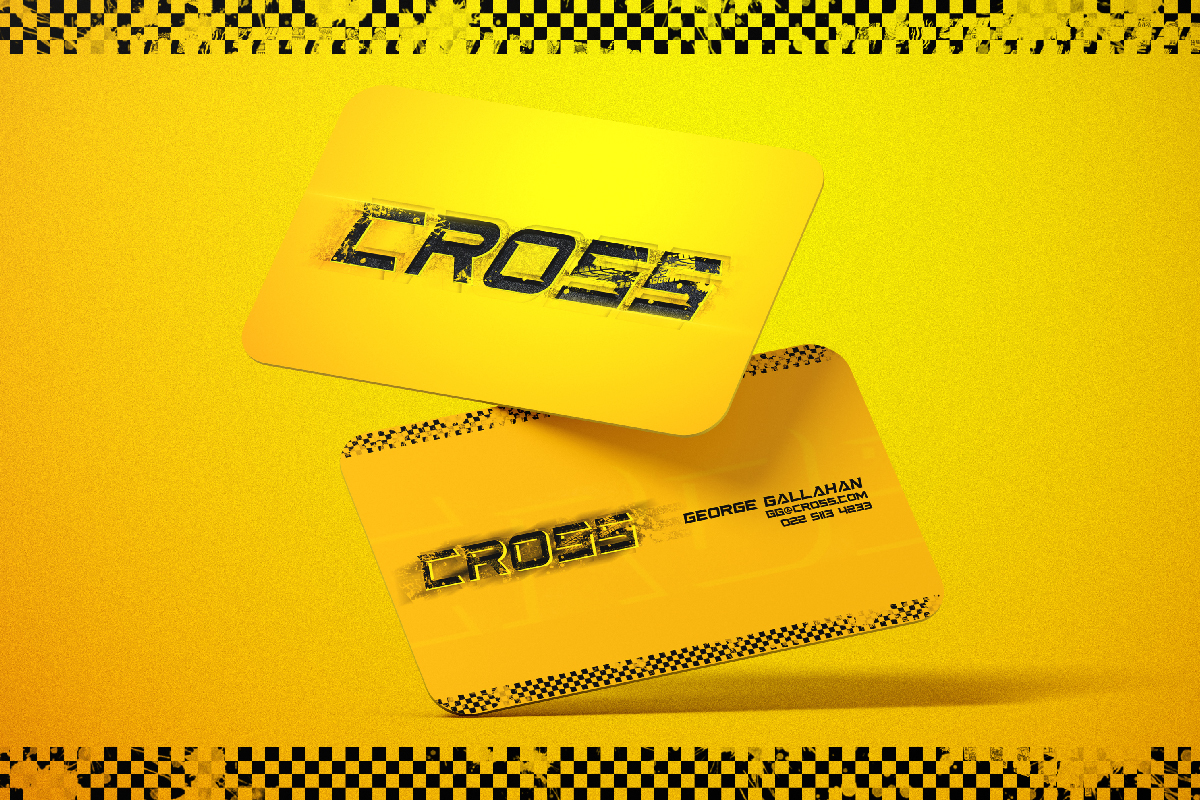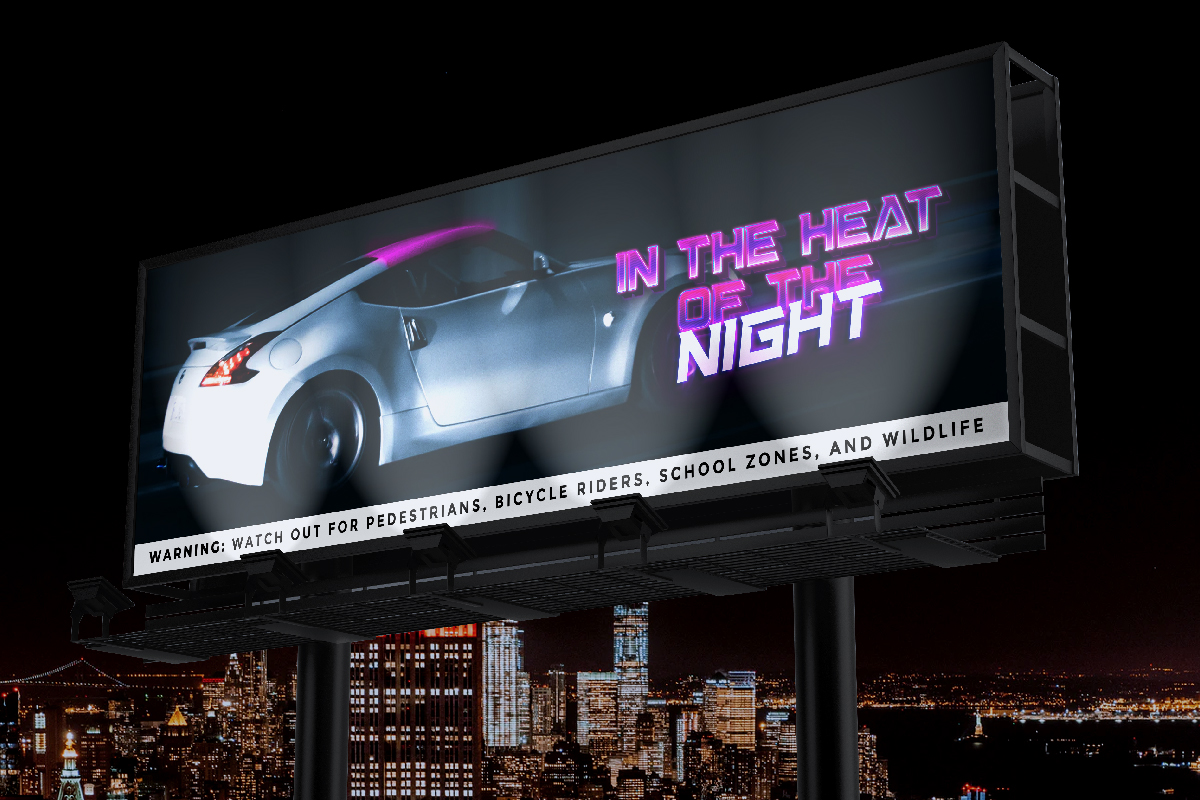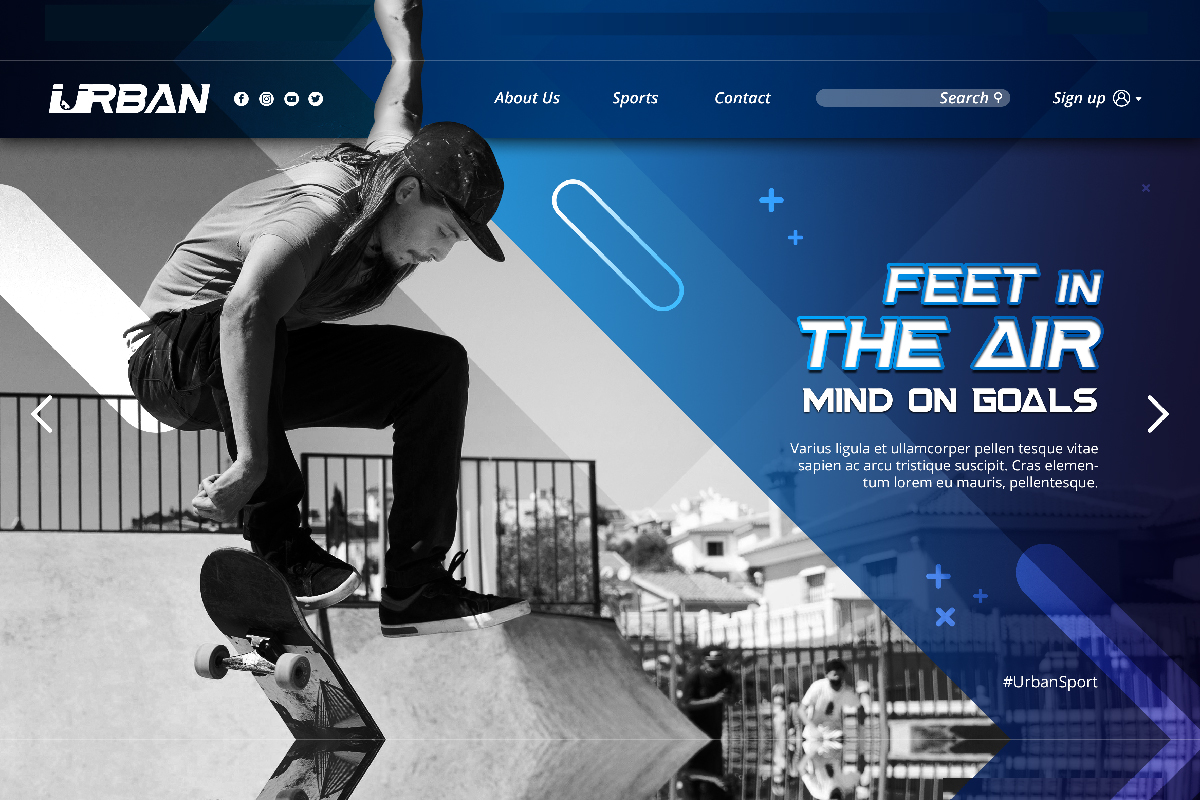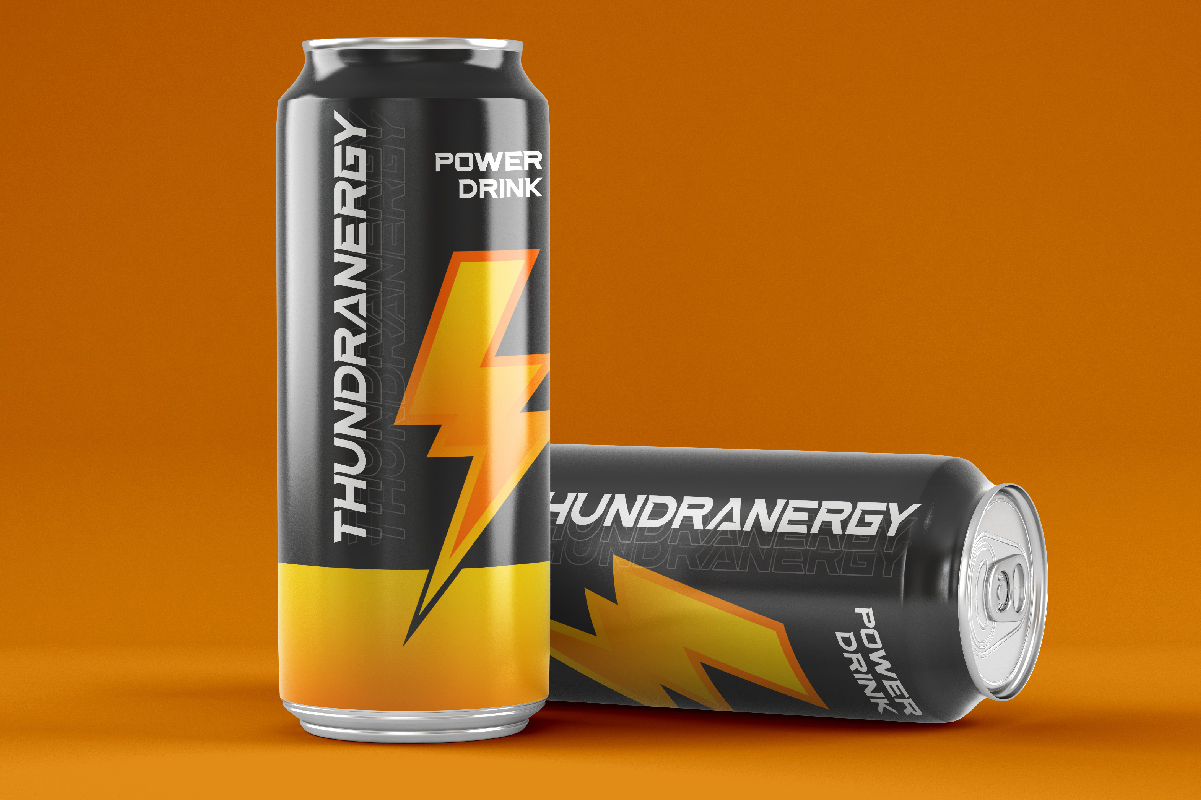
Super Road Font
Super Road Display Font
This font was handcrafted here in our Studio, Indonesia.The font will be great for any projects (require extended license) including : branding, logo, stationery, business card, signage, flyer, brochure etc. It comes with awesome characters and ligatures to make it flowless, stunning and unique.